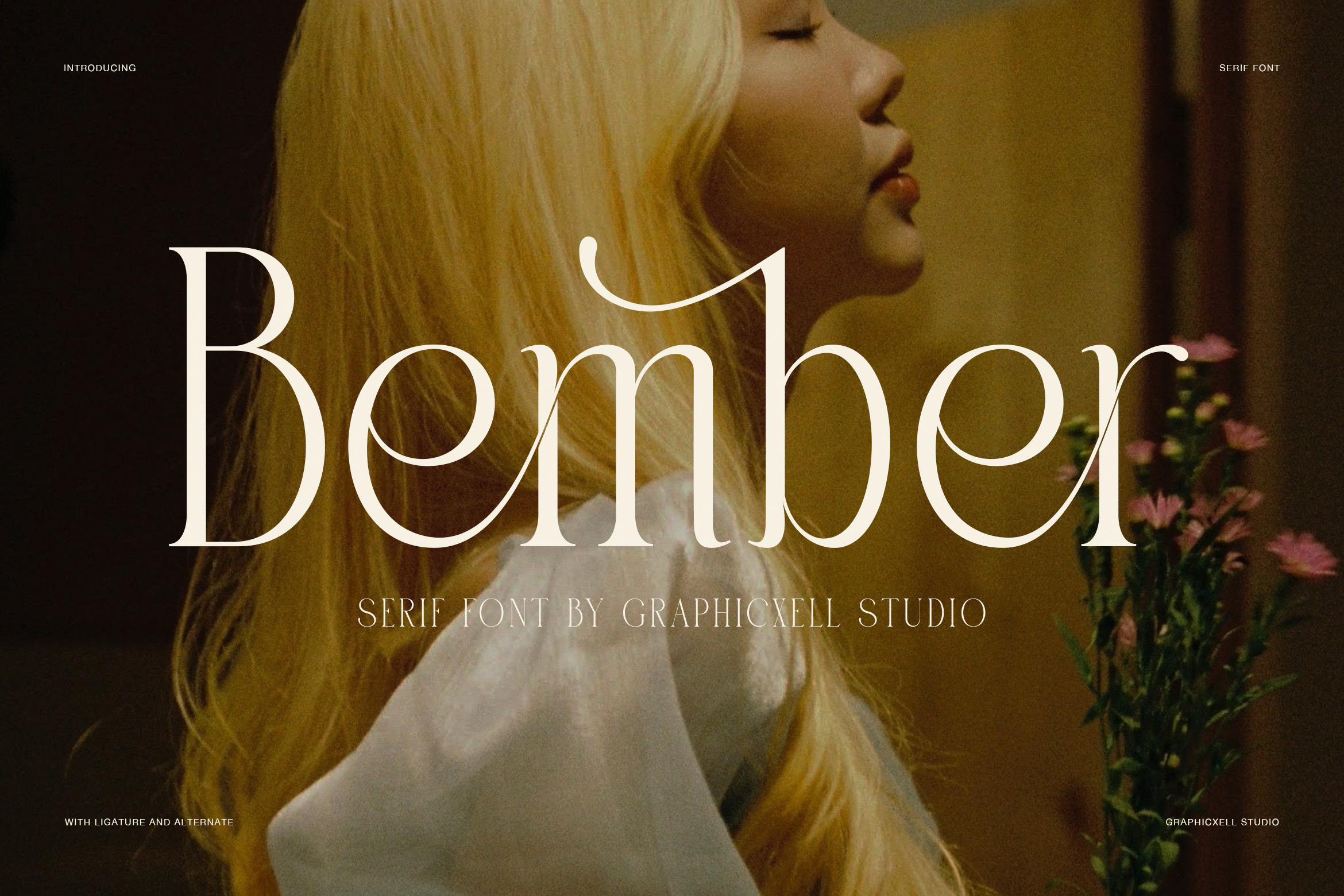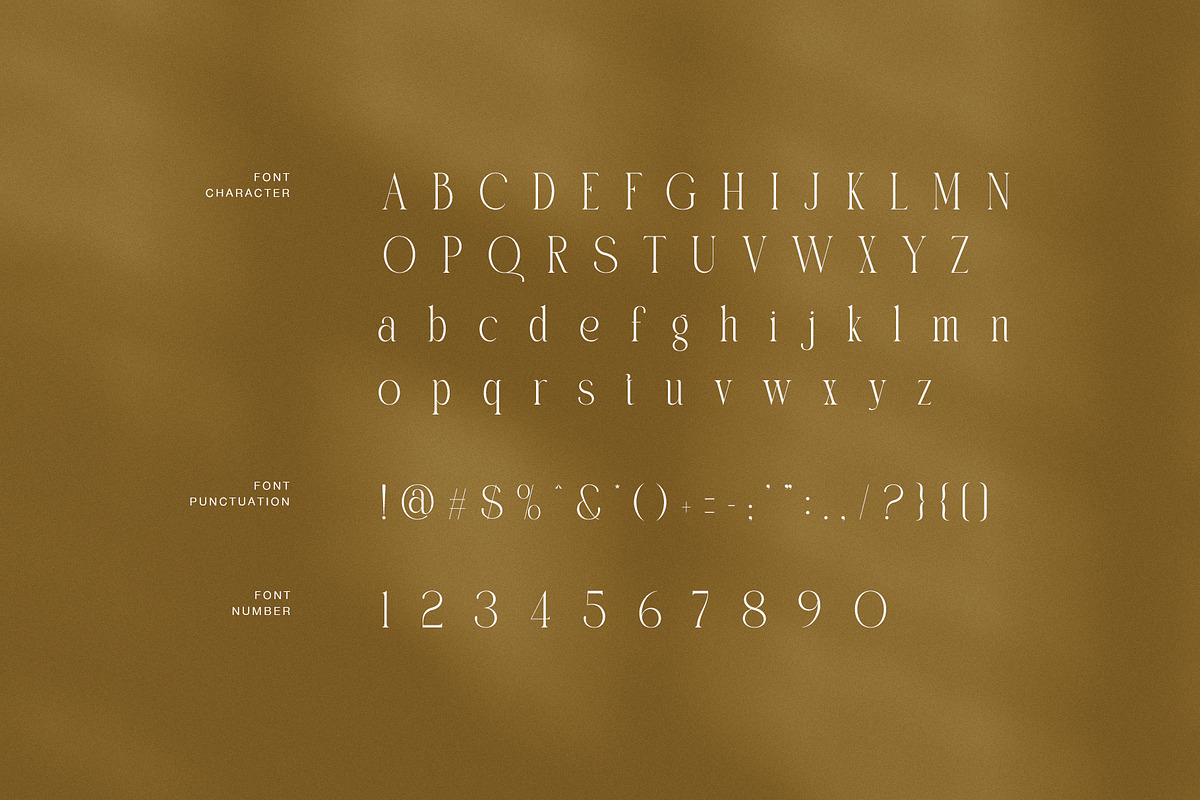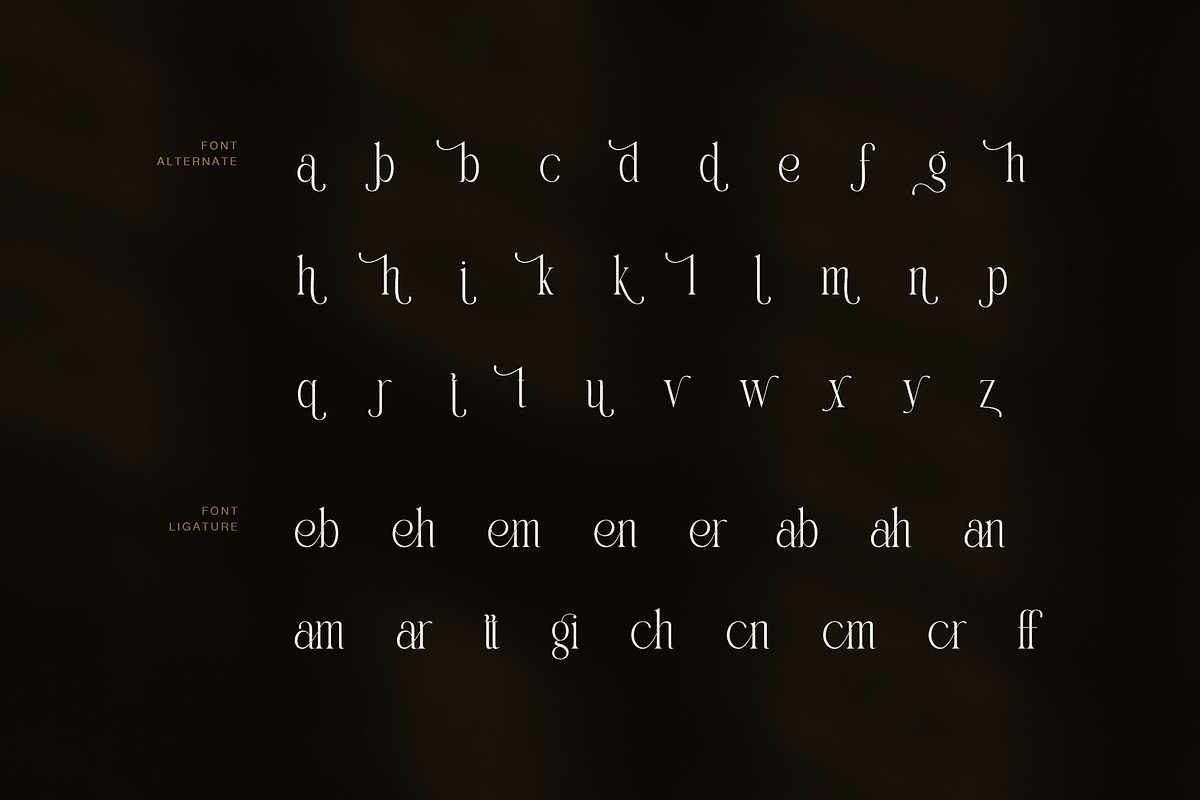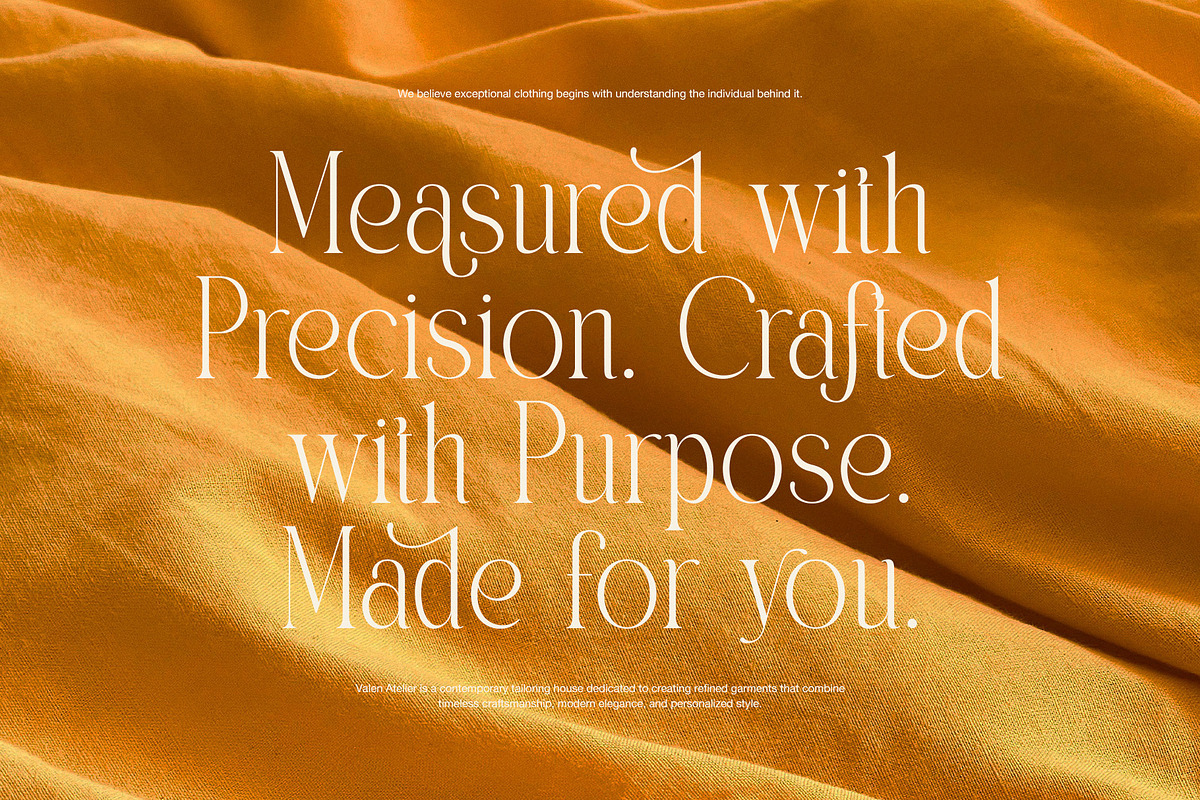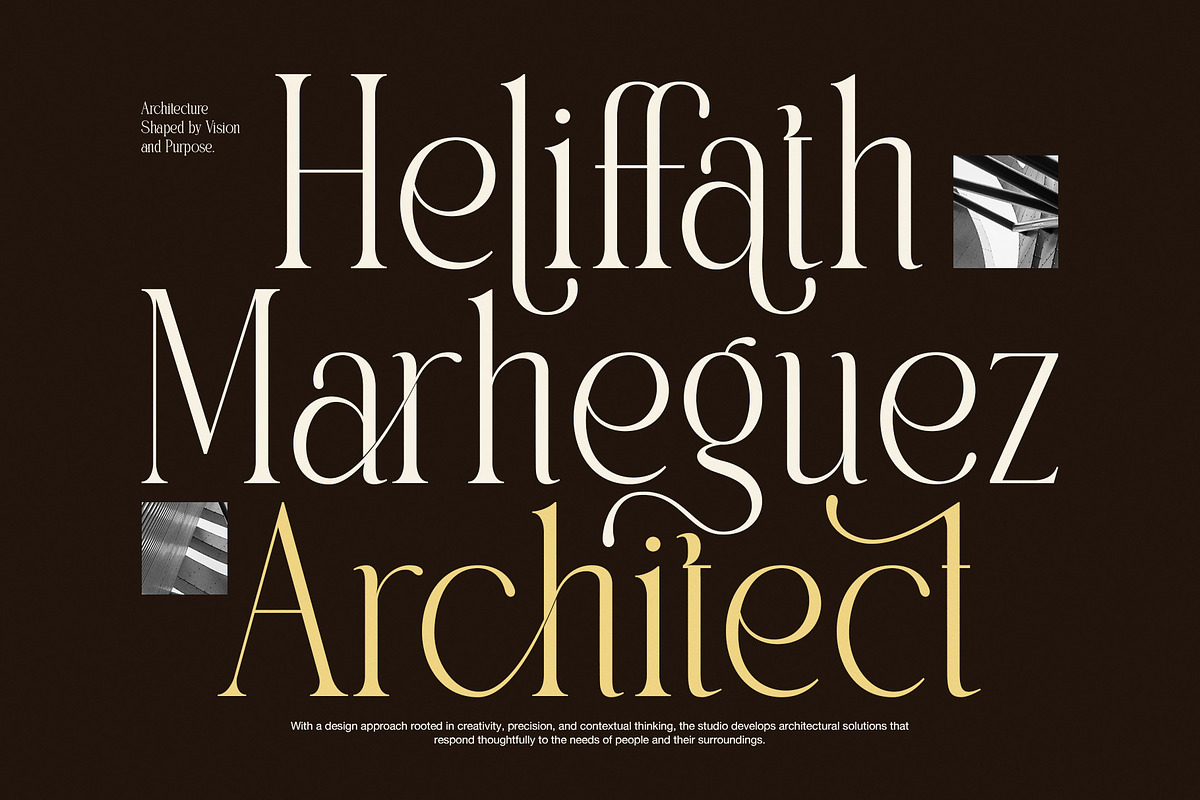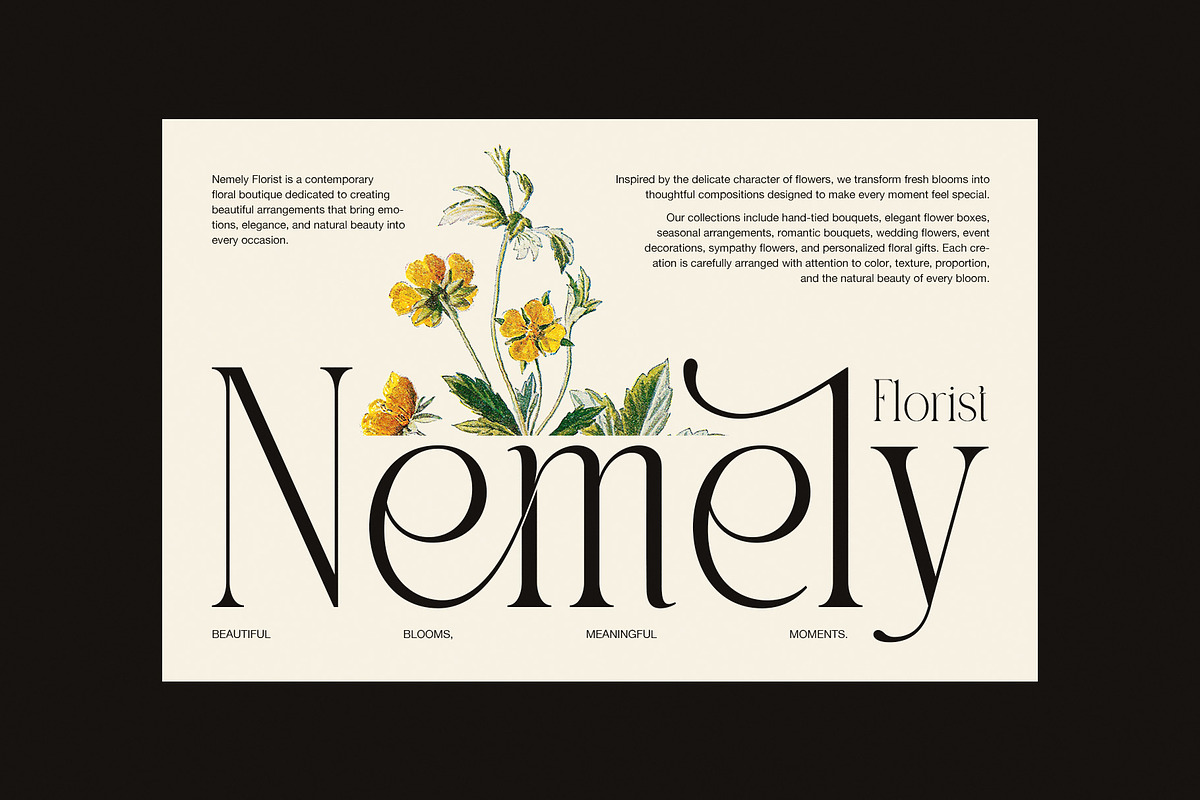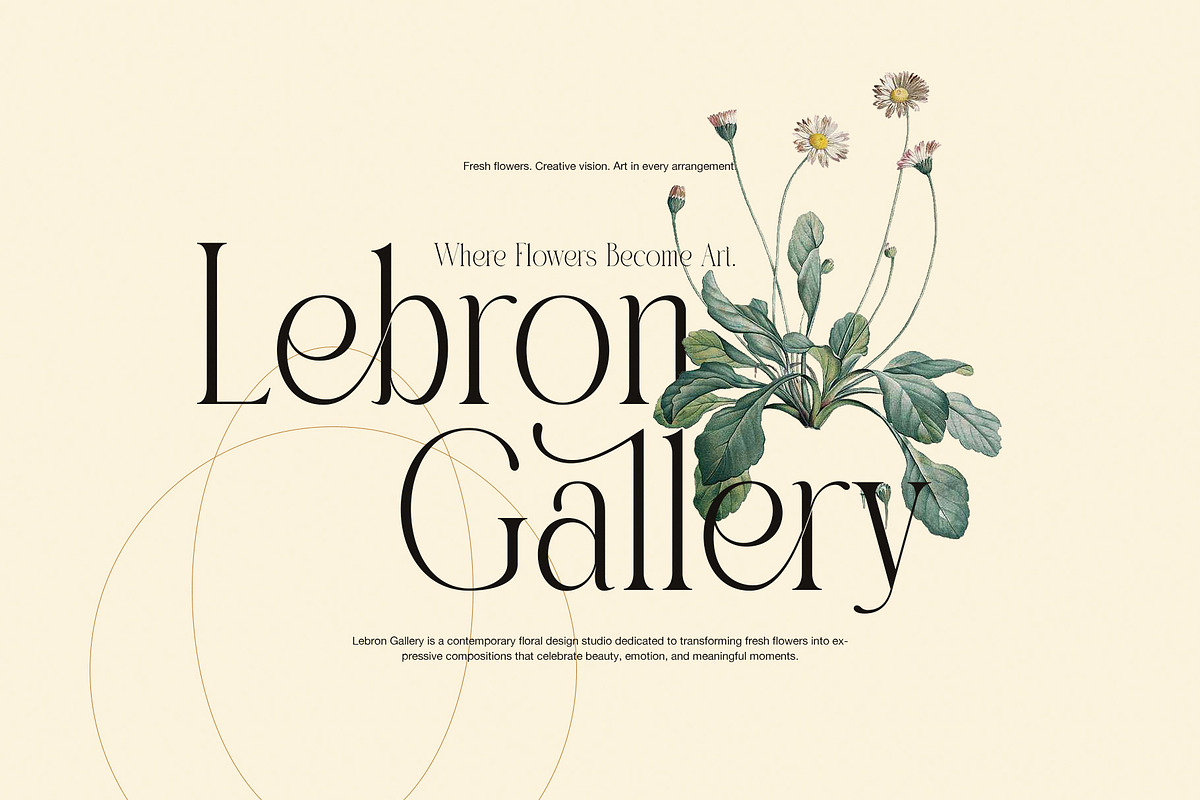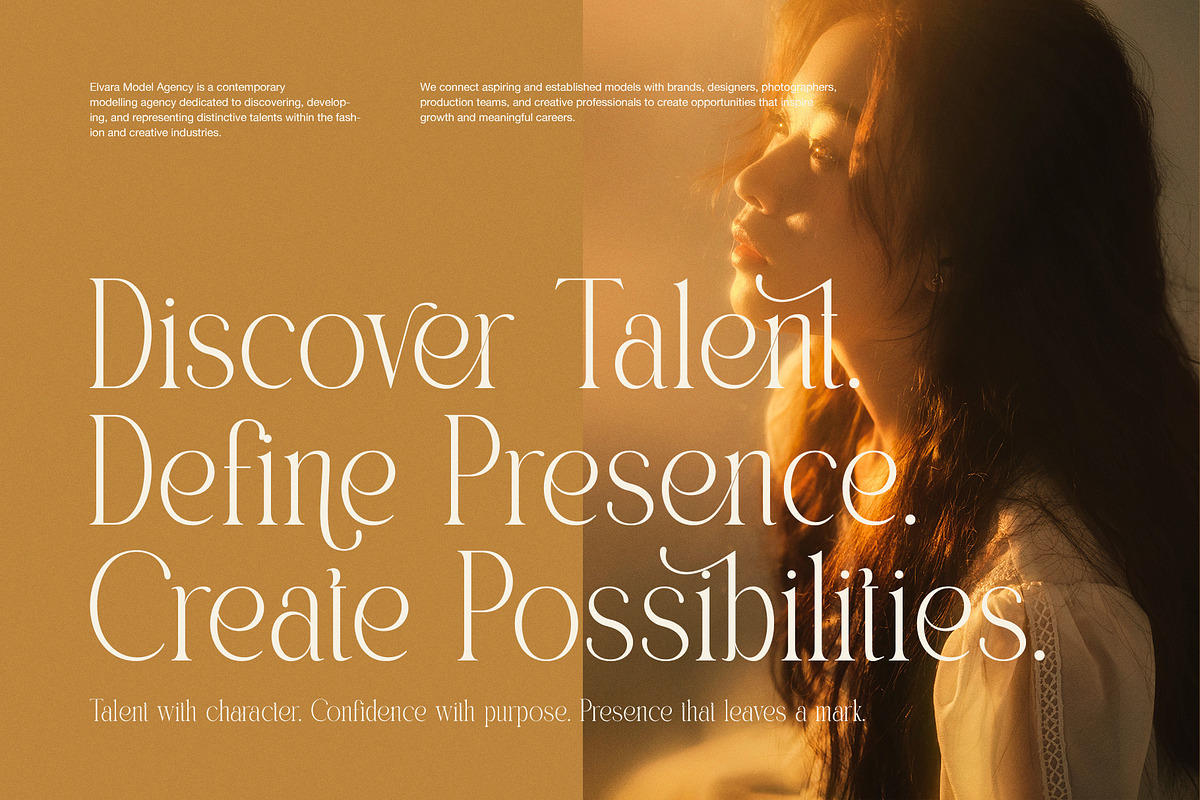
Bember Elegant Serif Font
Bember brings a refined high-contrast serif style to fashion, beauty, floral, architecture, and luxury branding. Its slender strokes, strong vertical forms, and graceful curves create an elegant look with a modern editorial edge. As a result, Bember gives headlines and brand names a distinctive presence without adding visual clutter.
The typeface balances delicate hairlines with confident letterforms. This contrast creates a light, sophisticated rhythm that works especially well at large sizes. Moreover, the unusual curves and extended terminals add personality to selected characters. Therefore, Bember can move from clean editorial layouts to expressive fashion campaigns with ease.
Stylish Alternates and Ligatures
Bember also includes alternate characters that give designers more creative control. Several lowercase forms feature elegant flourishes and subtle changes in shape. In addition, the font offers ligatures for selected letter combinations, helping words flow together with a more artistic finish.
Perfect for Elegant Branding
Use Bember for:
Fashion and beauty branding
Luxury logos and wordmarks
Floral studios and flower shops
Editorial headlines and magazines
Architecture and interior design
Boutique and lifestyle brands
Wedding invitations and stationery
Premium packaging and campaigns
Social media graphics and posters
The lowercase alternates make Bember especially useful for brand identities that need a softer and more expressive voice. Meanwhile, its clean uppercase alphabet gives headlines a strong foundation. You can mix standard letters, alternates, and ligatures to create a custom typographic style for each project.
Refined Editorial Character
Bember works best when typography takes a central role in the composition. Its tall proportions create generous visual space, while its fine details reward close attention. Furthermore, the font supports both minimalist layouts and richer art direction, making it a flexible choice for designers who want elegance with character.